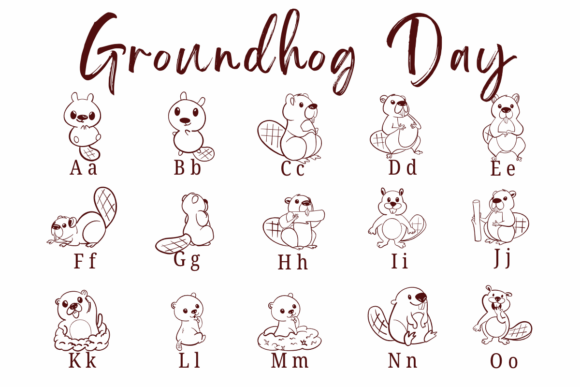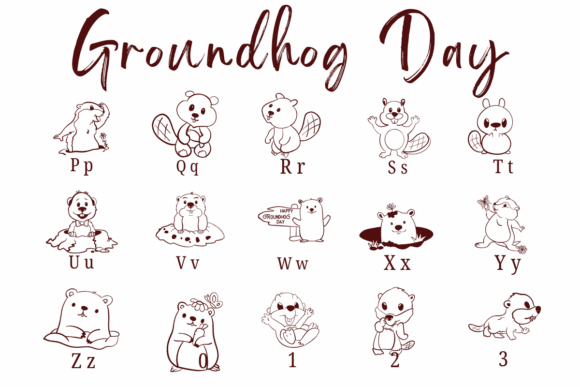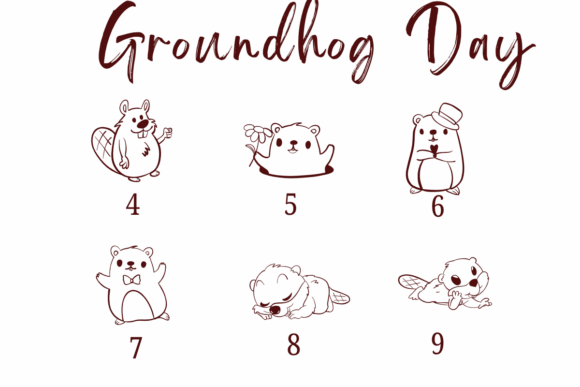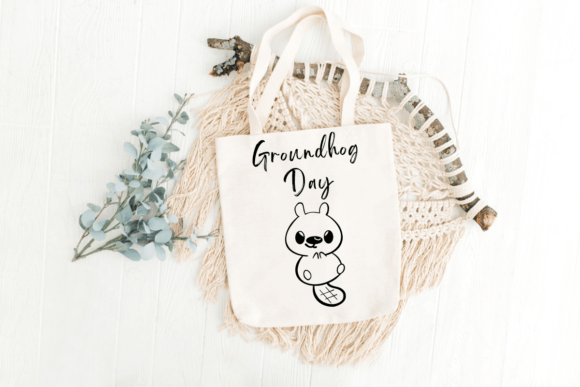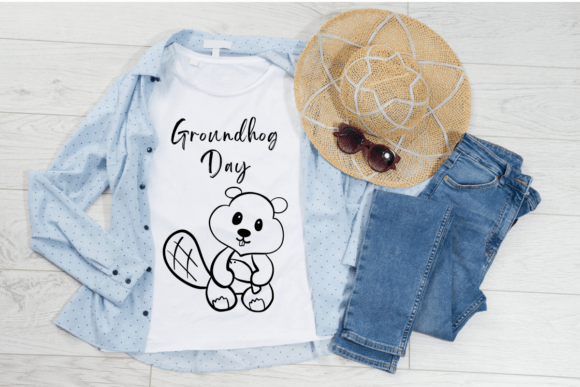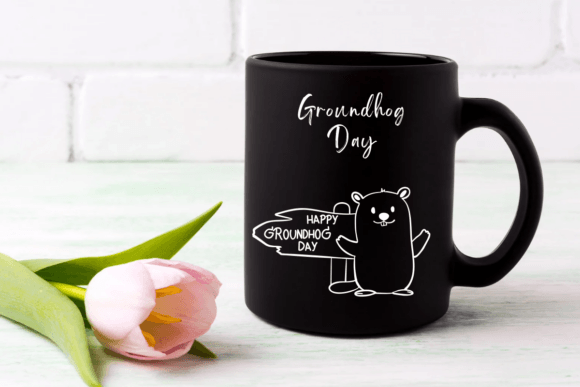
Groundhog Day Font: The Ultimate Dingbats Font for Creative Projects
Are you a designer, crafter, or DIY enthusiast looking for a unique and creative font to enhance your projects? Look no further than the Groundhog Day Font, a dingbats font with a sketched theme that’s perfect for a wide range of creative endeavors. In this article, we’ll explore the features and benefits of this versatile font, and show you how it can elevate your designs and crafts to the next level.
What is Groundhog Day Font?
Groundhog Day Font is a dingbats font that features a charming, hand-sketched design. The font is inspired by the whimsical and playful theme of Groundhog Day, a popular American tradition celebrated on February 2nd. The font’s sketched style gives it a warm, organic feel that’s perfect for creating unique and eye-catching designs.
Key Features of Groundhog Day Font
- Dingbats font: Groundhog Day Font is a dingbats font, which means it’s comprised of symbols, icons, and illustrations rather than traditional letters and numbers.
- Sketched theme: The font features a charming, hand-sketched design that gives it a warm and organic feel.
- Versatile: Groundhog Day Font can be used for a wide range of creative projects, from wedding invitations and DIY crafts to decorations, logos, and more.
Creative Uses for Groundhog Day Font
Groundhog Day Font is a versatile font that can be used for a wide range of creative projects. Here are some ideas to get you started:
- Wedding invitations: Add a touch of whimsy and romance to your wedding invitations with Groundhog Day Font.
- DIY crafts: Use the font to create custom labels, tags, and other embellishments for your DIY crafts.
- Decorations: Create custom signs, banners, and other decorations for parties, events, and everyday use.
- Logos and branding: Use Groundhog Day Font to create unique and memorable logos and branding materials for your business or personal projects.
- Stationery and cards: Add a personal touch to your stationery and cards with the font’s charming, hand-sketched design.
Benefits of Using Groundhog Day Font
So why choose Groundhog Day Font for your creative projects? Here are just a few benefits:
- Unique and eye-catching: The font’s sketched design and dingbats style make it a standout choice for designers and crafters looking for something new and different.
- Time-saving: With Groundhog Day Font, you can create custom designs and crafts in minutes, without the need for extensive design experience.
- Versatile: The font can be used for a wide range of projects, making it a great addition to any designer’s or crafter’s toolkit.
Tips for Using Groundhog Day Font
Here are a few tips for getting the most out of Groundhog Day Font:
- Experiment with different colors and textures: The font’s sketched design looks great in a variety of colors and textures, so don’t be afraid to experiment and find the perfect combination for your project.
- Mix and match with other fonts: Groundhog Day Font pairs well with a wide range of fonts, so feel free to mix and match it with other fonts to create a unique and eye-catching design.
- Use it for both digital and print projects: The font is versatile enough to be used for both digital and print projects, making it a great addition to any designer’s or crafter’s toolkit.
Groundhog Day Font is a unique and versatile dingbats font with a sketched theme that’s perfect for a wide range of creative projects. With its easy-to-use design and charming, hand-sketched style, it’s a great choice for designers and crafters looking to add a touch of whimsy and personality to their designs. Whether you’re creating wedding invitations, DIY crafts, decorations, logos, or stationery, Groundhog Day Font is sure to become a favorite in your toolkit.